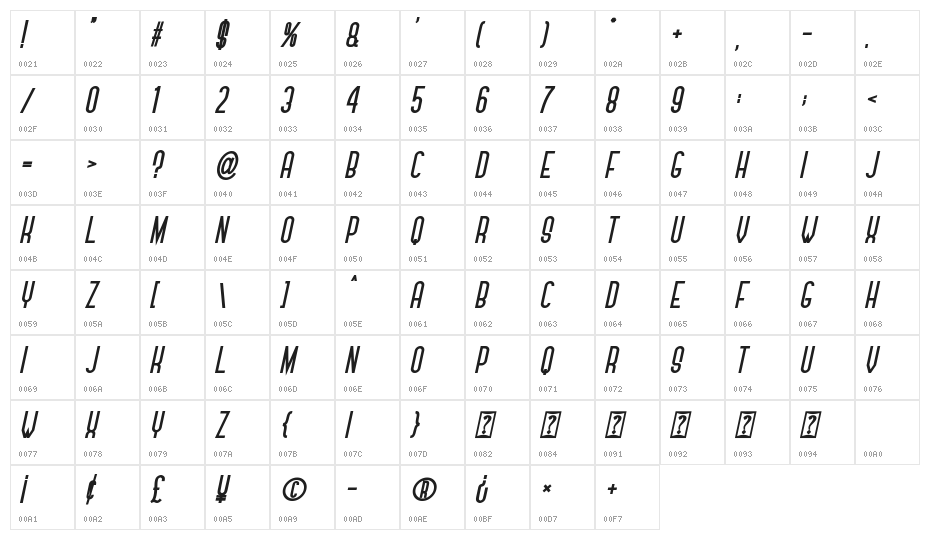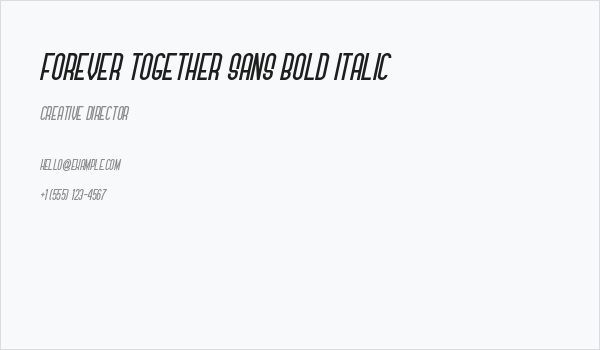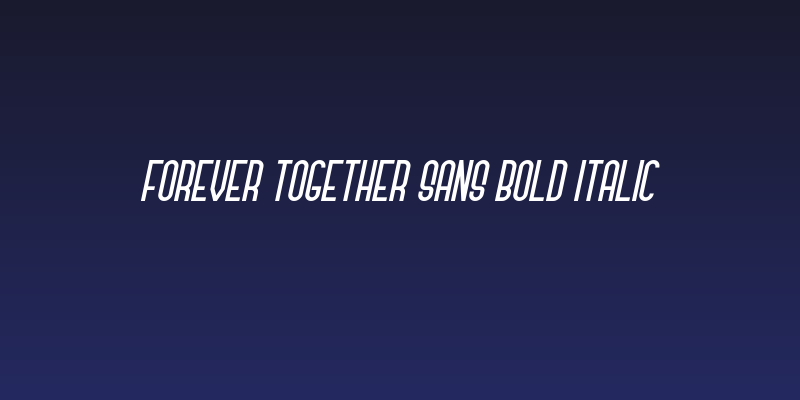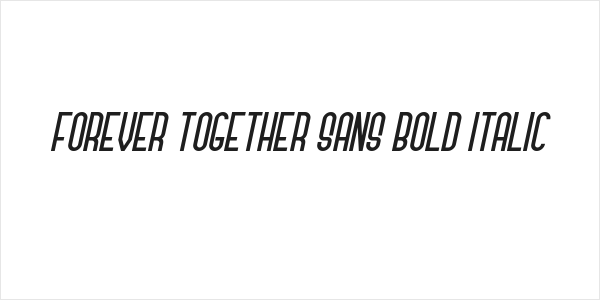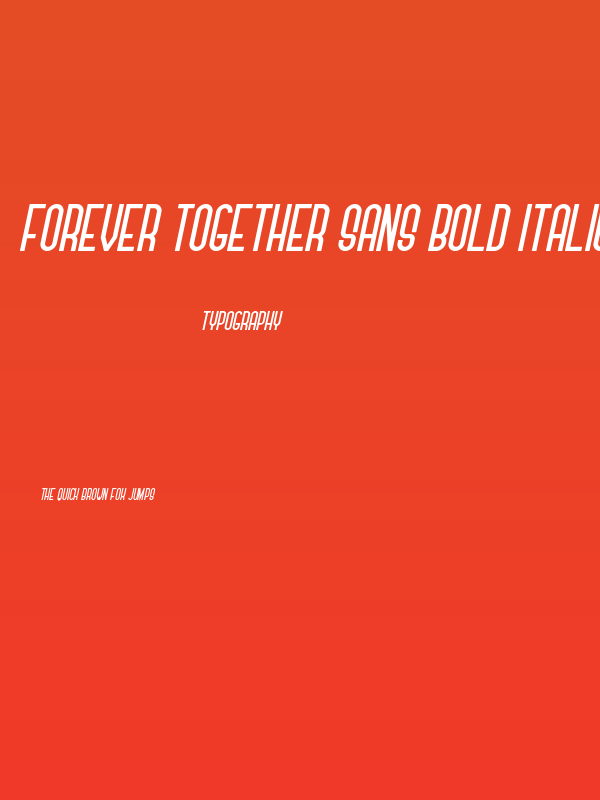
Forever Together Sans Bold Italic Font
Forever Together Sans Bold Italic Description
This font features a bold and italicized style with a modern sans-serif design. The characters are elongated and slightly condensed, giving a sleek and dynamic appearance. The strokes are consistent in weight, contributing to a uniform look across all characters. The slant of the italic adds a sense of motion and energy, making it suitable for attention-grabbing headlines. The numbers and special characters maintain the same bold and italic characteristics, ensuring consistency throughout. The overall design is clean and contemporary, ideal for projects that require a strong visual impact.
| Proposed Projects | Ideal for branding, advertising, posters, and headlines that require a bold and modern look. |